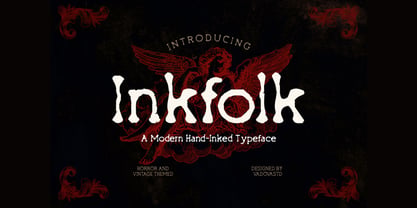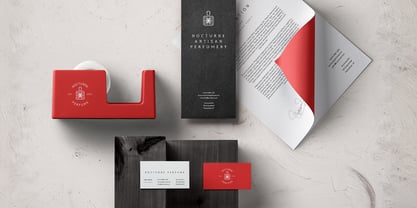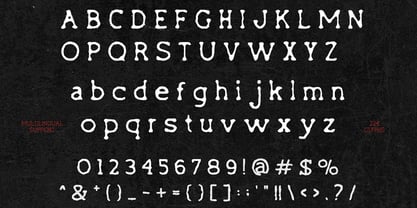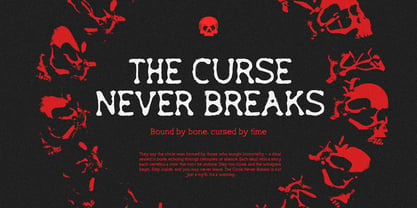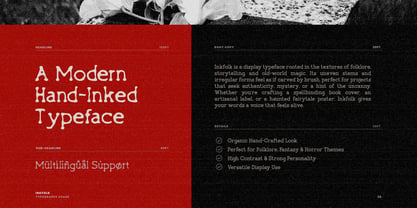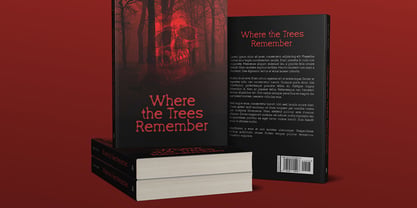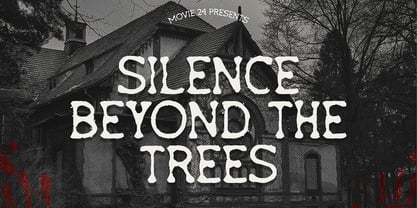
Inkfolk
Inkfolk Gothic Horror Serif Font is a hand-drawn display font with a distinctive horror and vintage vibe, blending gothic undertones with rustic charm. Its irregular, inky strokes create a textured and eerie personality that suits creepy and ancient themes. Perfect for Halloween posters, mystery book covers, or any design needing a bold and unsettling touch.
Suitable for halloween event, Dark fantasy book covers, supernatural or mystery-themed posters, Gothic branding & product labels, vintage-inspired logos, historical drama packaging, horror novel titles, art exhibition promotions, tattoo & alternative culture merchandise, candle or apothecary packaging.